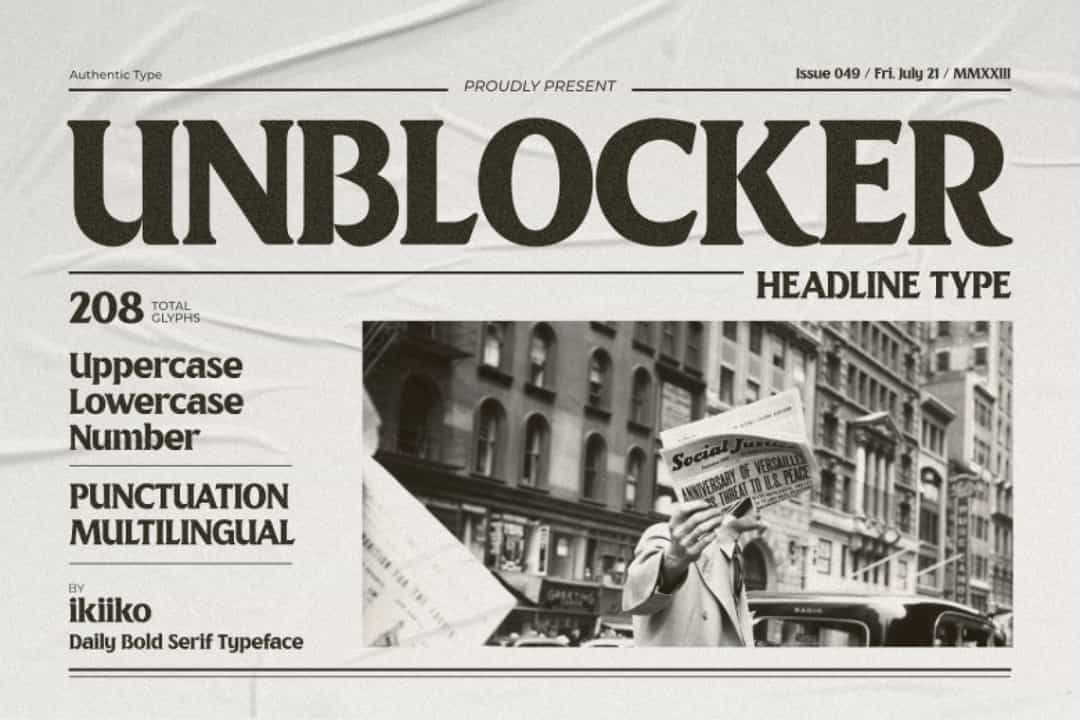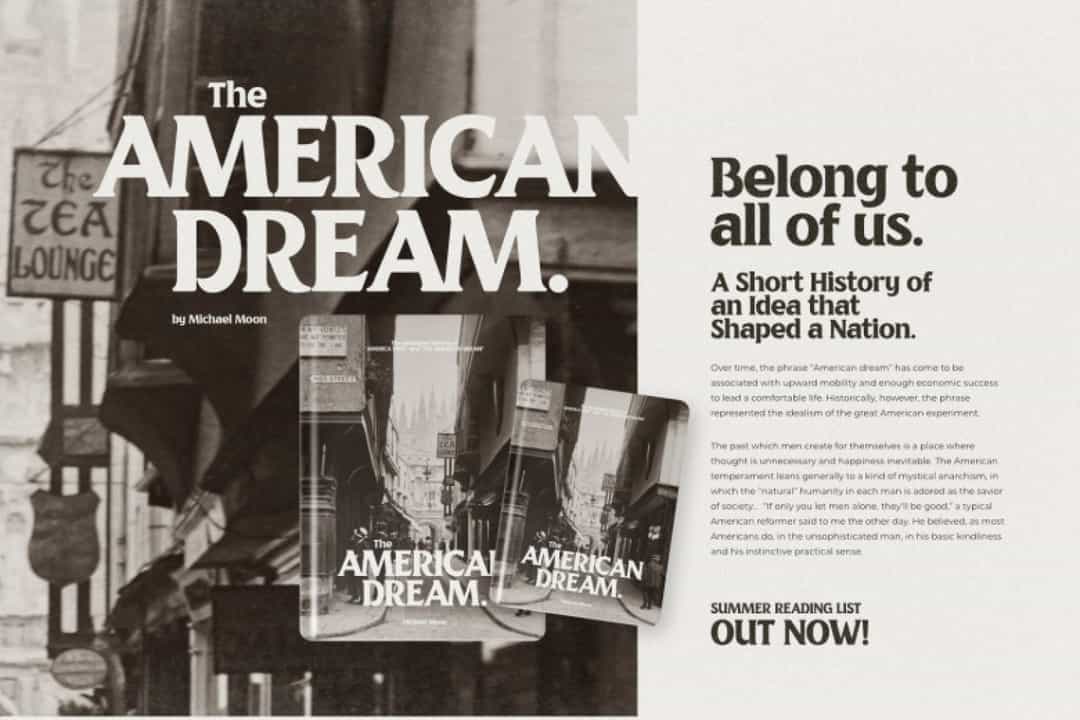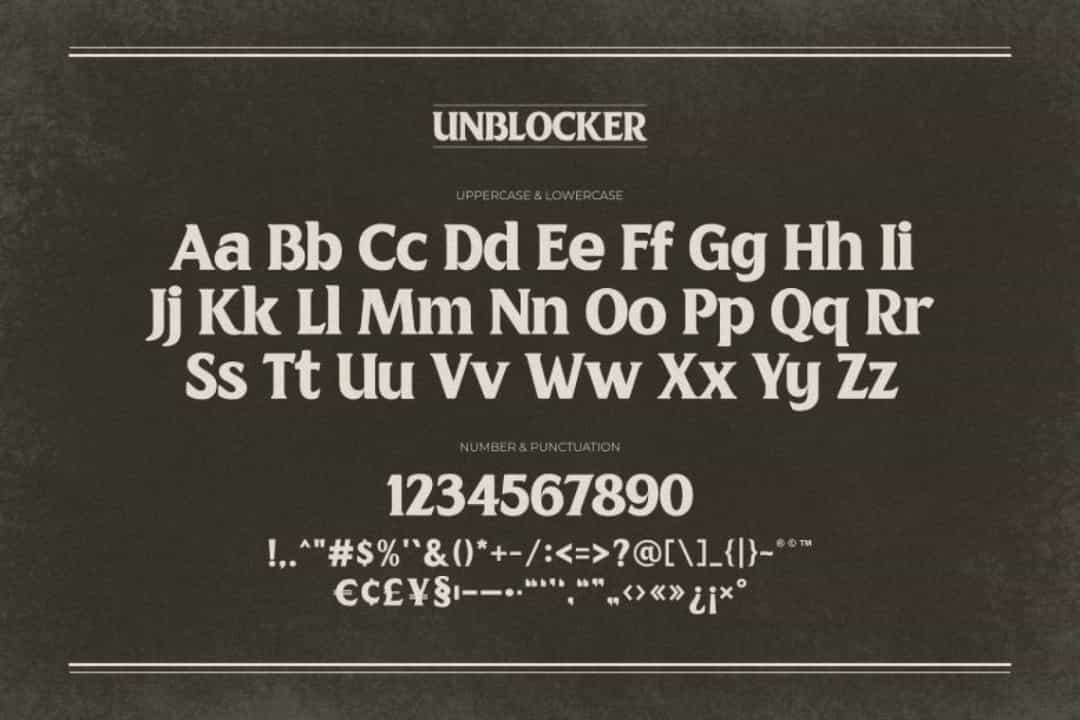
Unblocker was designed by ikiiko to be an engaging and dynamic headline typeface with an intimidating presence and timeless style. Each letter exudes energy while still remaining graceful; its delicate weighted strokes project stability making Unblocker ideal for bold headlines or banners needing to make an impressionful statement.